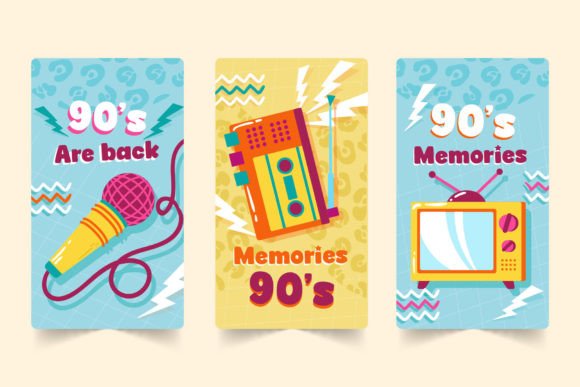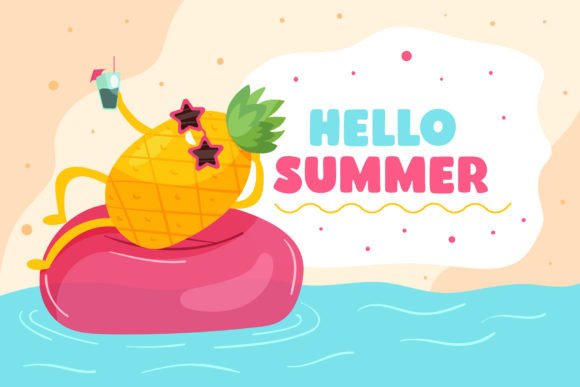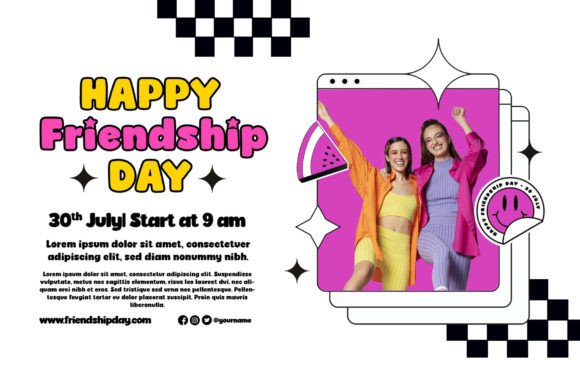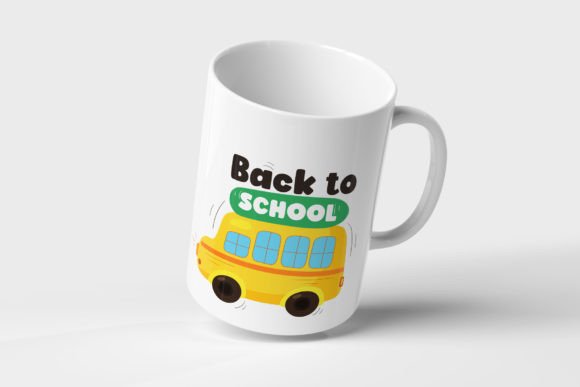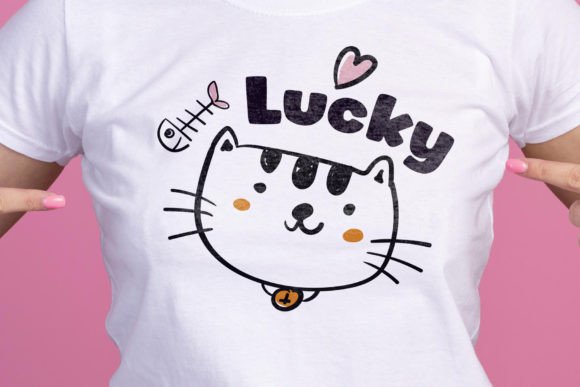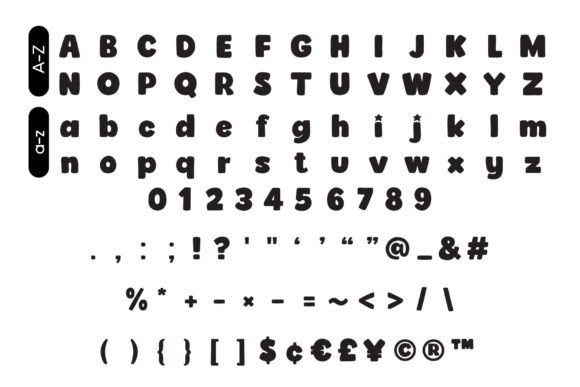
Have you ever sat at your desk, staring at a blank page, waiting for inspiration to strike? You know, that moment when everything just clicks and your ideas start flowing? It’s a feeling like no other, and it’s what drives us as designers to create something truly special. For me, that moment often comes when I get to work with a font that’s as playful as it is professional.
Enter Fox Antics Font, the perfect companion for any design project that needs a dash of fun and flair. This lively display font is crafted with creativity and originality in mind, featuring bold and expressive characters that are guaranteed to make your designs stand out. Whether you’re designing a children’s book, a social media campaign, or a brand identity, Fox Antics Font is the perfect choice to add a touch of whimsy and personality to your work.
Fox Antics Font Key Features
- Font Family: Fox Antics, Fox Antics Outline, Fox Antics Shadow, Fox Antics Fill
- Unique Characteristics: The font features a playful, whimsical design with hand-drawn elements and a mix of uppercase and lowercase letters
Review: Fox Antics Font
First off, I’d say the Fox Antics Font is a wild ride. The quirky, hand-drawn style ✨ adds a playful touch to any design project. I particularly enjoy using it for children’s books, menus, and other creative ventures where a lighthearted feel is a must. The font is highly customizable, with plenty of weight and style options to choose from.
The font’s main strength lies in its versatility. It works well in both digital and print formats, and its unique character set can add an extra layer of personality to your design. Here are some of the things I love about Fox Antics:
- ✨ Playful, whimsical feel that adds a touch of fun to any project
- ✨ Highly customizable with a range of weights and styles
- ✨ Suitable for both digital and print formats
- ✨ Unique character set adds an extra layer of personality
That being said, there are a few limitations to be aware of. For one, the font may not be the best choice for formal or professional projects. Additionally, some characters may not render correctly in certain fonts or browsers. Here are some things to watch out for:
- ⚠️ May not be suitable for formal or professional projects
- ⚠️ Some characters may not render correctly in certain fonts or browsers
Overall, I’d say Fox Antics is a great addition to any designer’s toolkit. While it may have some limitations, its unique charm and versatility make it a valuable asset for creative projects.
Tips for Getting the Most Out of Fox Antics Font
Use Fox Antics Font to add a playful and whimsical touch to your designs.
Pair the font with bold, bright colors to create a fun and energetic look.
Use the font for headings and titles to add emphasis and visual interest.
Use Fox Antics Font for:
Children’s book covers and illustrations.
Party invitations and decorations.
Marketing materials and advertisements for fun and playful brands.
Alternatives to Fox Antics Font
Great Vibes Font is a modern script font that conveys a sense of playfulness and friendliness. It is perfect for use in social media posts, advertisements, and websites that require a fun and approachable tone.
Compared to Fox Antics Font, Great Vibes Font is more refined and elegant, making it suitable for a wider range of applications. While Fox Antics Font is more casual and quirky, Great Vibes Font is more polished and sophisticated.